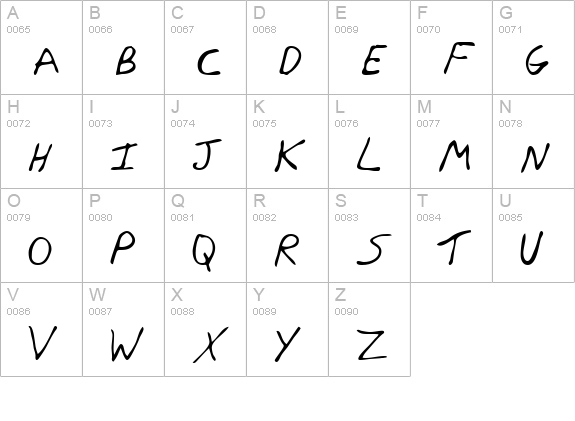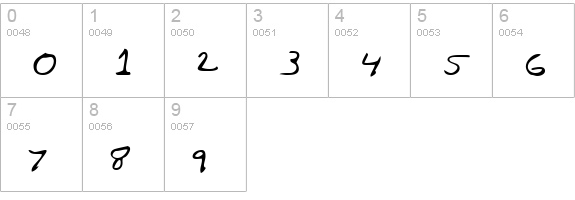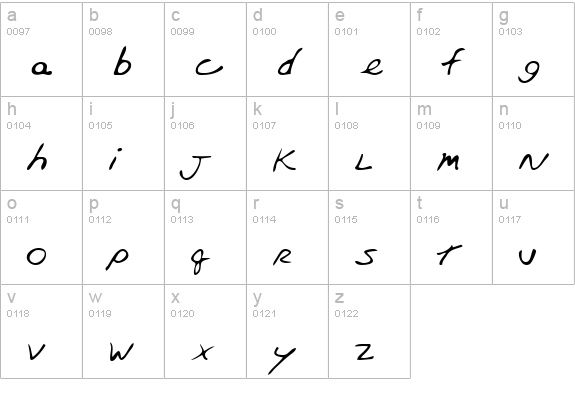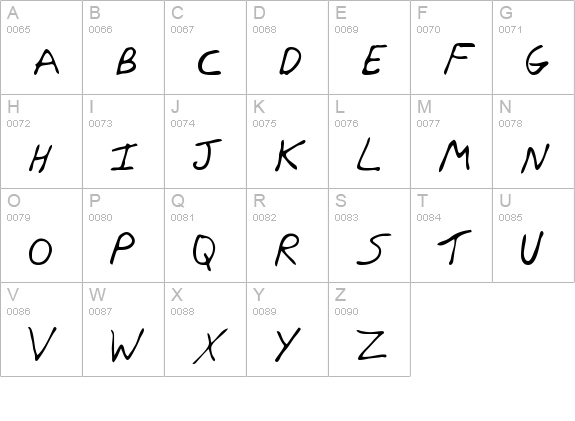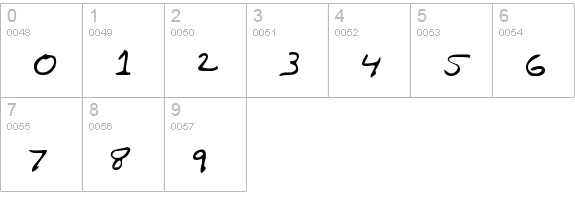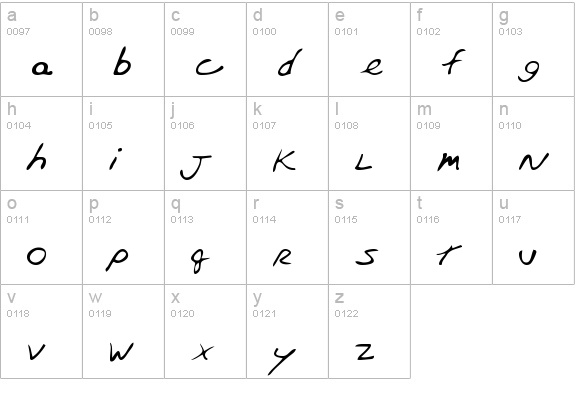
RossysHand Regular is the standard, neutral variant in the RossysHand typeface family \xE2\x80\x94 well suited to general body text, paragraphs, and standard typographic work.
RossysHand Regular is a charming and elegant handwritten font that exudes a sense of warmth and friendliness. With its delicate curves and flowing strokes, this font is perfect for adding a personal touch to any design project. Whether you're creating invitations, greeting cards, or social media graphics, RossysHand Regular will bring a touch of sophistication to your work. What's even better is that RossysHand Regular is available for free download at FontsMarket.com. This means you can easily access this beautiful font and start using it in your projects without any cost. So why wait? Download RossysHand Regular today and elevate your designs with its timeless appeal.